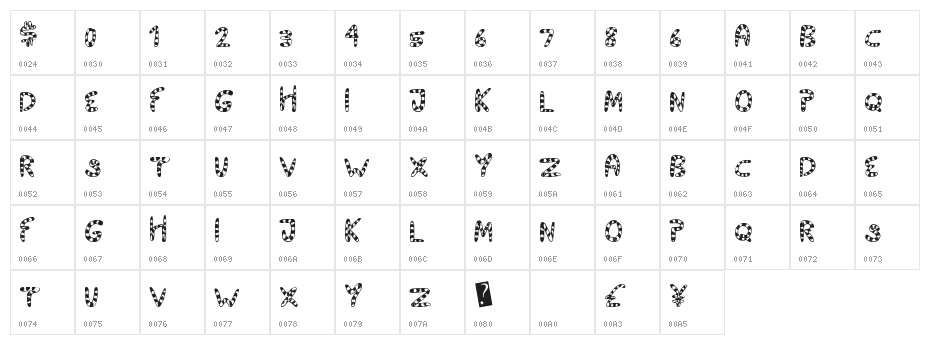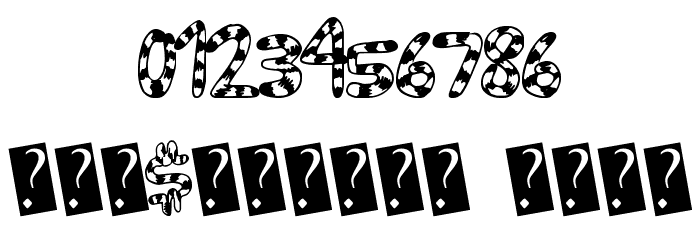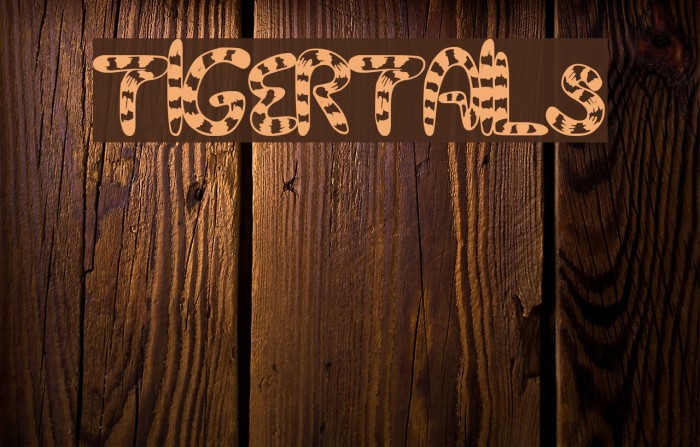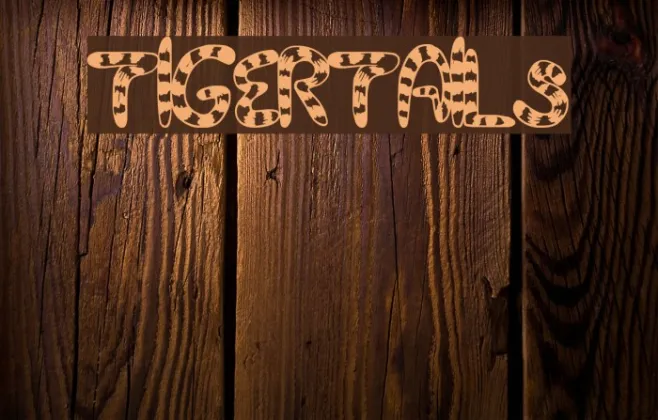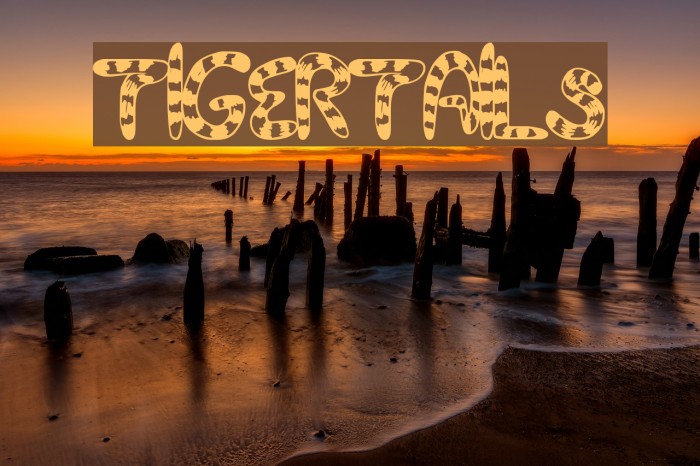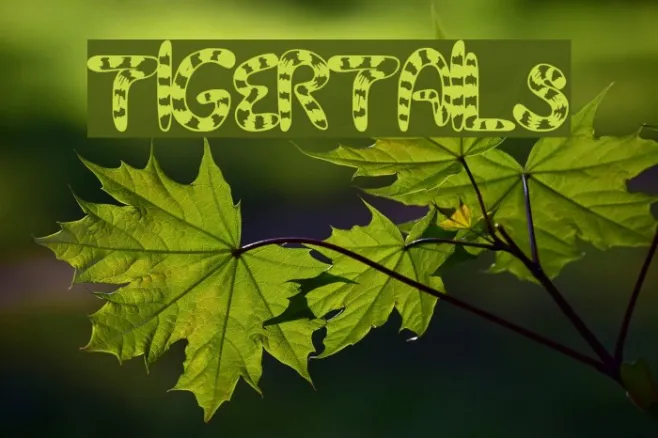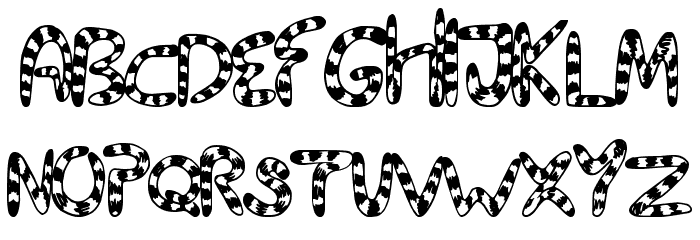
TigerTails Font
TigerTails Description
This playful and whimsical font features bold, rounded characters with a distinctive striped pattern reminiscent of a tiger's tail. Each letter is crafted with a sense of fun and creativity, making it stand out with its unique design. The font's boldness and decorative style make it ideal for projects that require a touch of personality and flair. Its eye-catching appearance is perfect for children's books, playful branding, or any design that seeks to convey a sense of joy and imagination. The characters are evenly spaced, ensuring readability while maintaining their decorative appeal.